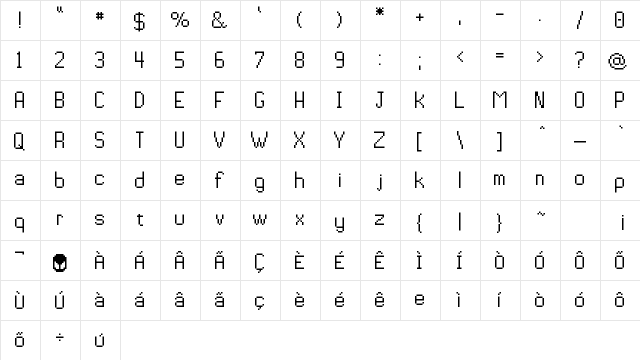
Pixiel Medium
Design Context for Pixiel Typeface
Pixiel takes a measured approach to typography — its balanced proportions and neutral character make it a reliable workhorse for both digital and print work.